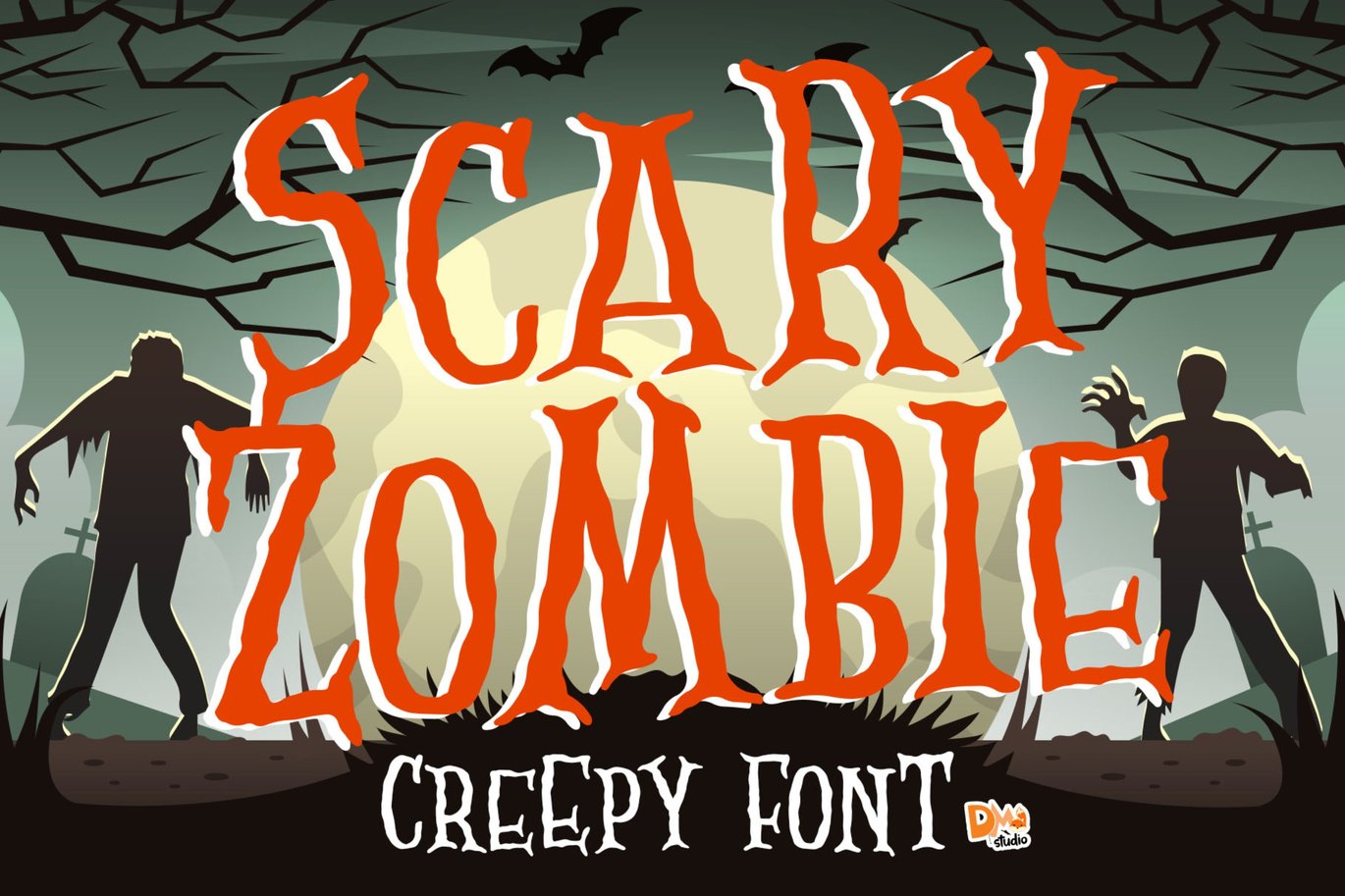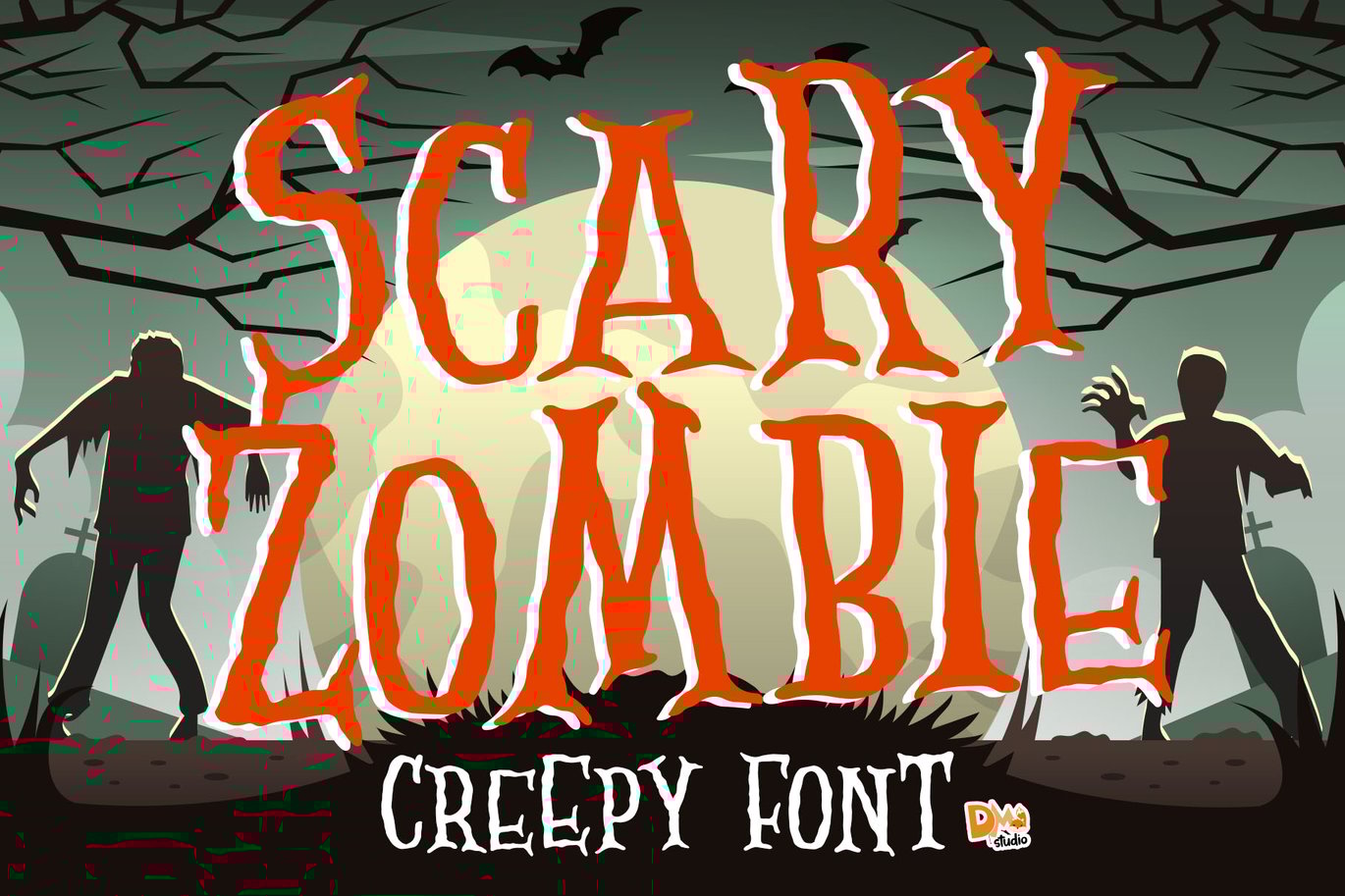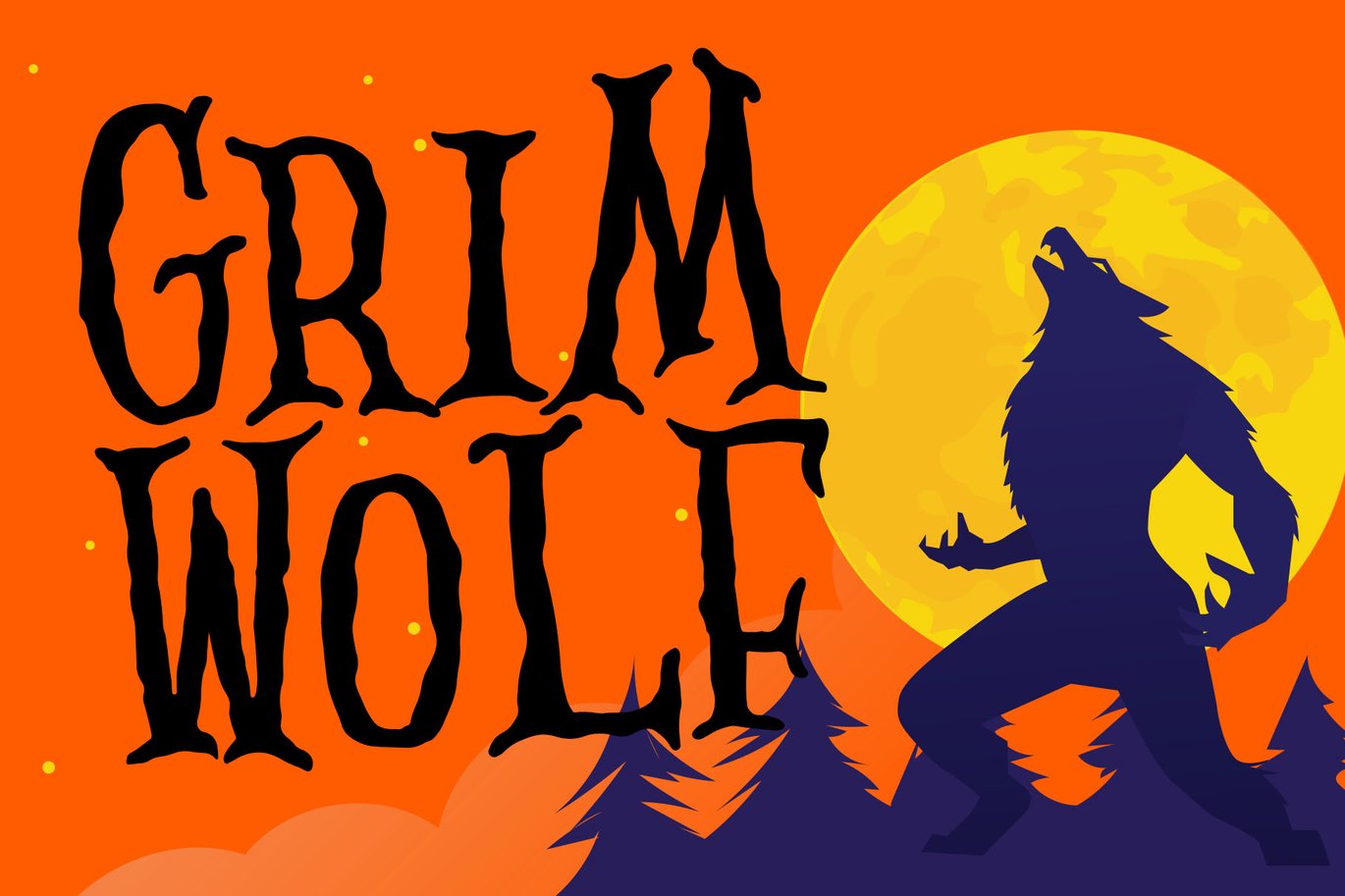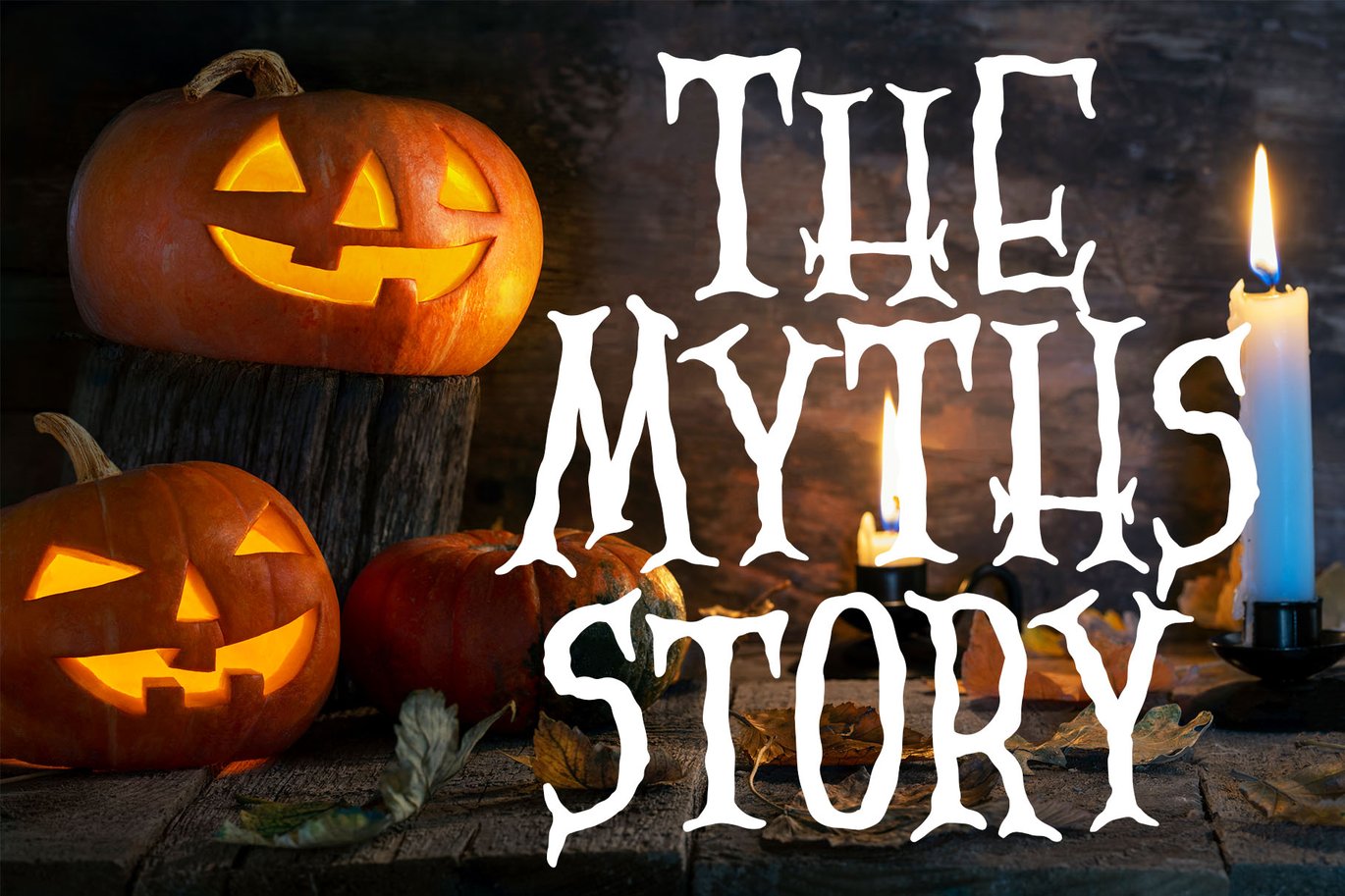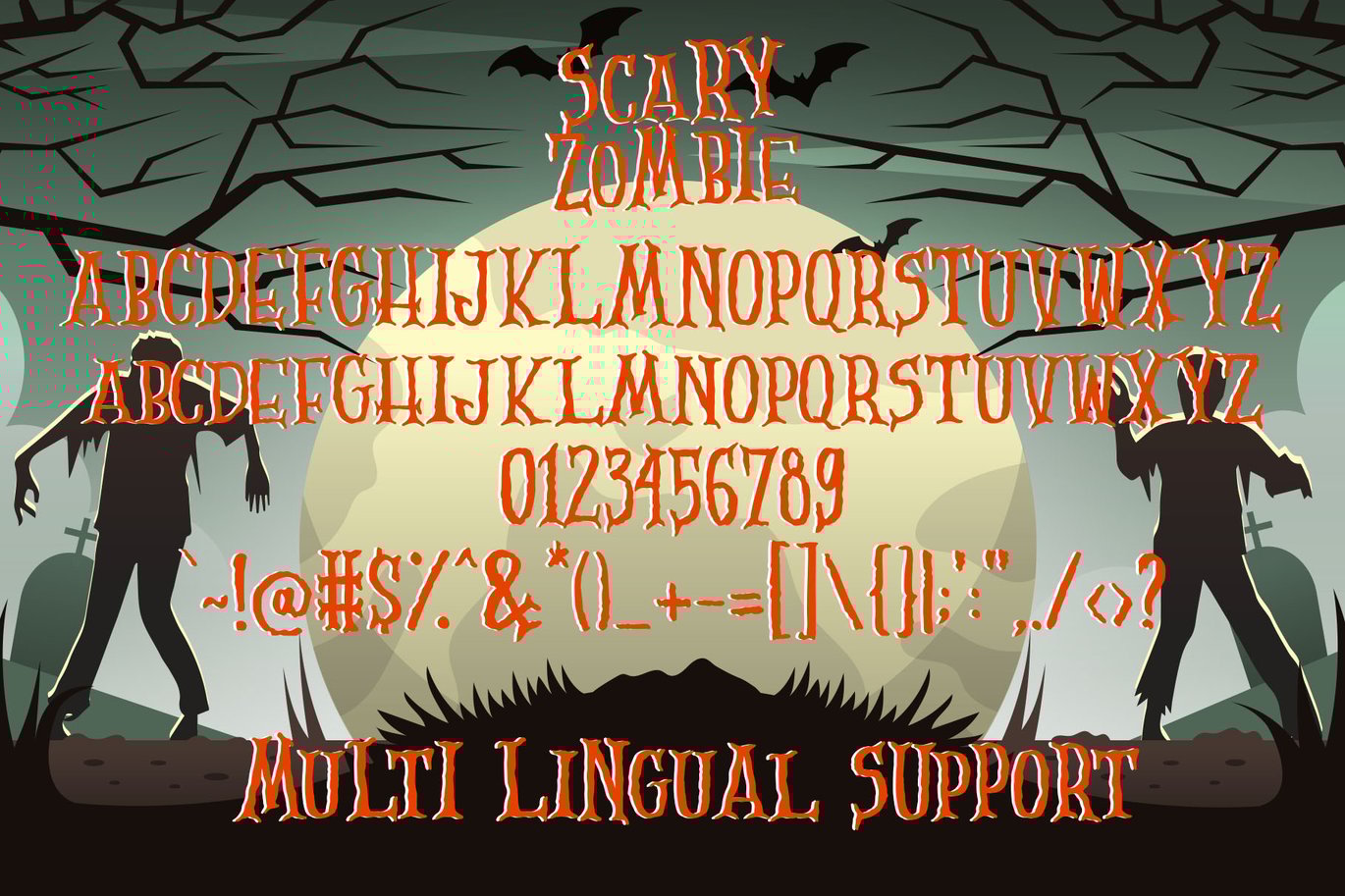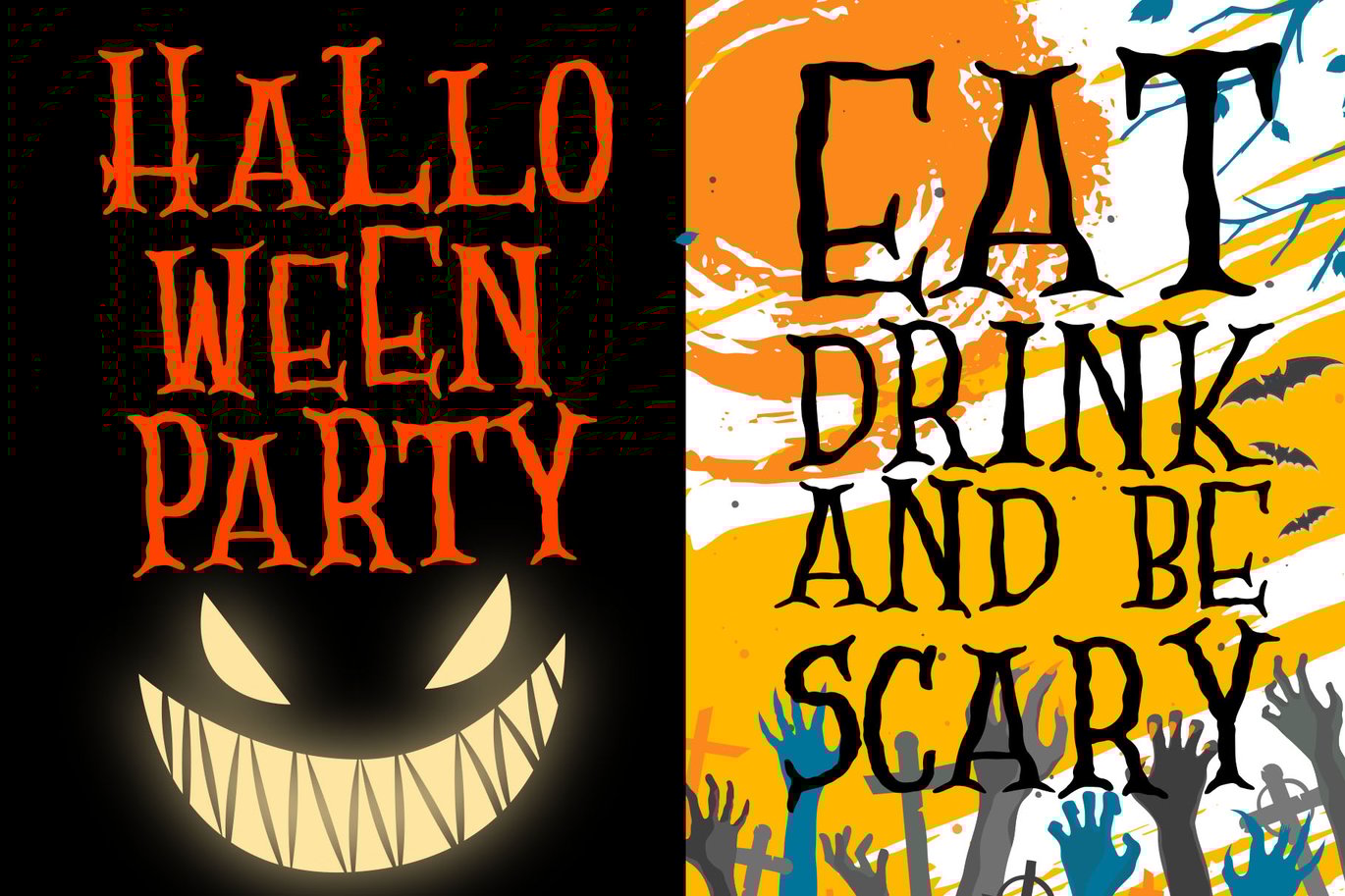
Scary Zombie – Spooky Font
Watch out for “Scary Zombie” !! This scary typeface special made for your scary moments.. Great for crafting at Halloween, Birthday, and much more!
All in caps in 2 heights (Uppercase & lowercase)
Numeric
Symbols